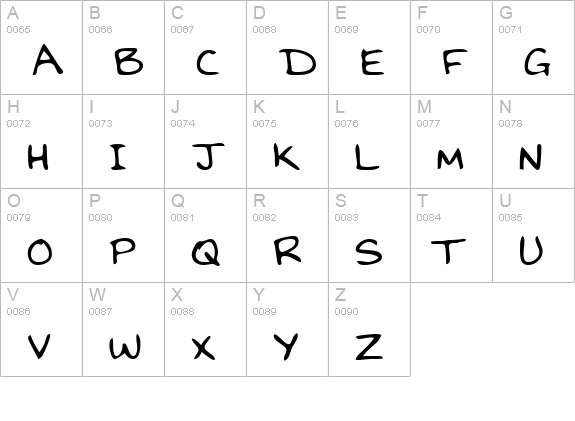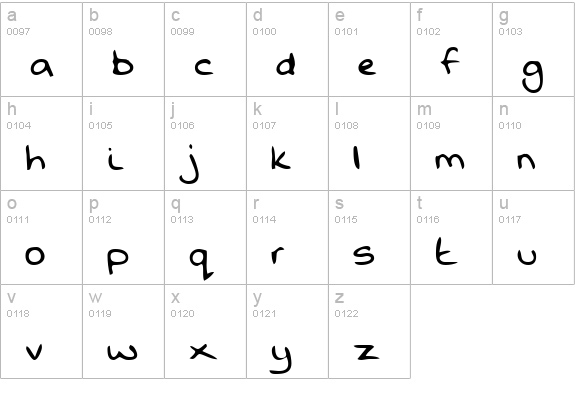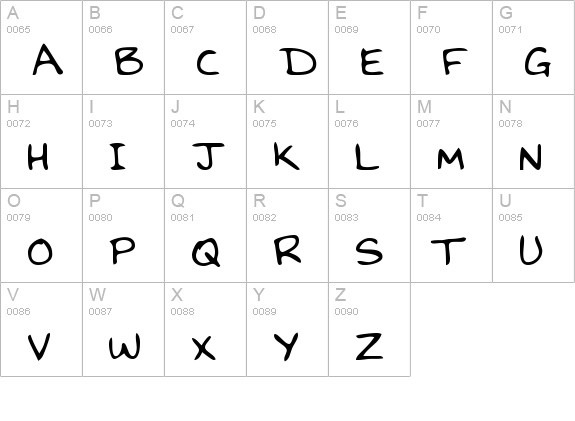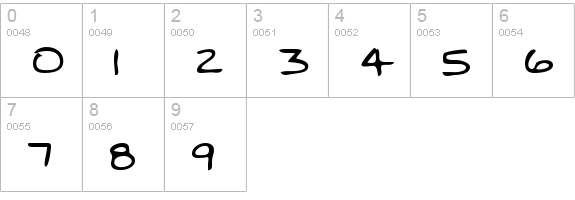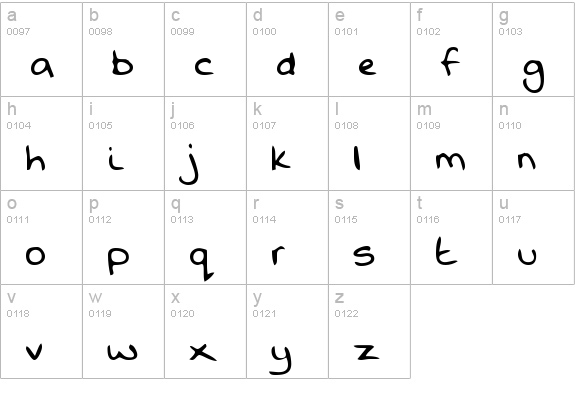
DavesHand Regular is the standard, neutral variant in the DavesHand typeface family \xE2\x80\x94 well suited to general body text, paragraphs, and standard typographic work.
DavesHand Regular is a charming and versatile font that exudes a warm and friendly feel. With its handwritten style and smooth curves, this font is perfect for adding a personal touch to your projects. Whether you're designing invitations, posters, or branding materials, DavesHand Regular will bring a unique and inviting look to your work. Best of all, DavesHand Regular is available for free download at FontsMarket.com. You can easily access this font and start using it in your designs right away. Don't miss out on the opportunity to add this beautiful and expressive font to your collection. Download DavesHand Regular today and let your creativity shine!